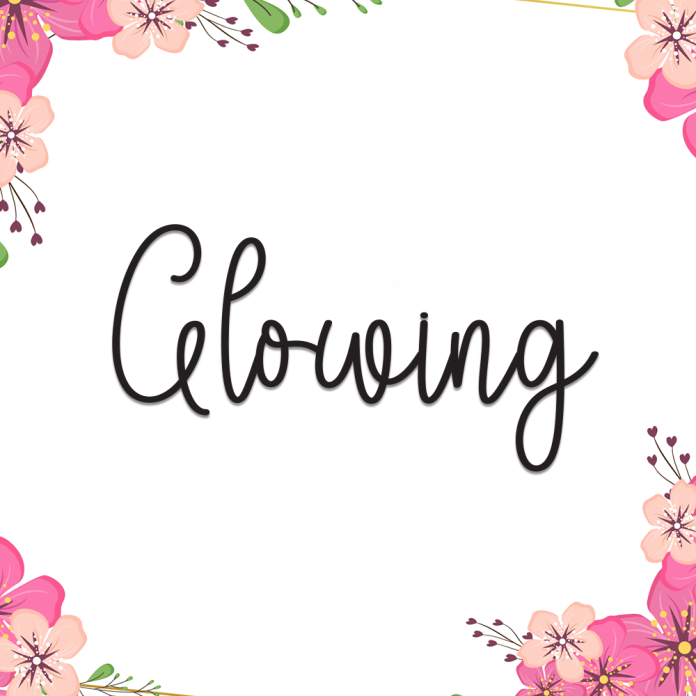
Glowing is a luminous and graceful handwritten font that brings a sense of light and elegance to your designs. With fluid strokes and a smooth flow, it radiates charm and sophistication in every letterform.
Perfect for branding, wedding invitations, fashion quotes, logos, and social media graphics, Glowing adds a handwritten sparkle that makes your message shine.
Elegant and clean handwritten script
Suitable for elegant branding, fashion, and lifestyle designs
Uppercase & lowercase letters, numbers, and punctuation
High readability and professional look
Light up your creative work with Glowing, the handwriting font that brings your words to life.